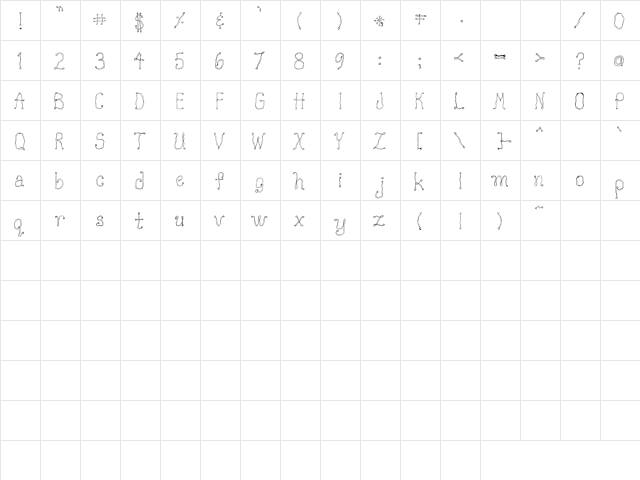
LOT Buttons & Strings Normal
Design Context for LOT Buttons & Strings Typeface
LOT Buttons & Strings is a composed and adaptable typeface that performs quietly and consistently across a wide range of design contexts.